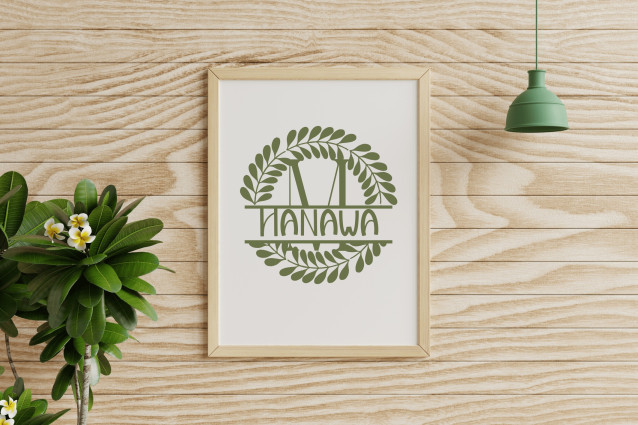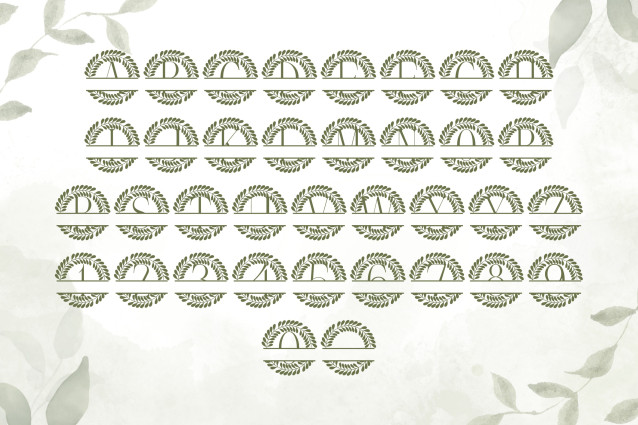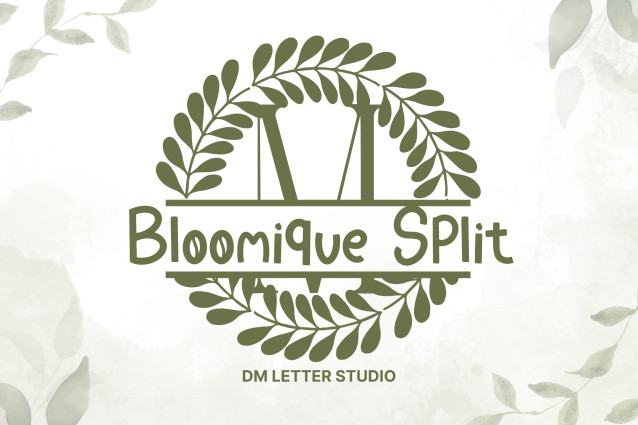
Bloomique Split Font
Bloomique Split Font is a graceful serif split monogram font that pairs timeless uppercase letters with refined floral illustrations and a clean horizontal divide—ideal for customizing with names, initials, or brand messages. It’s the perfect choice for wedding designs, personalized gifts, Cricut projects, and floral-themed branding.